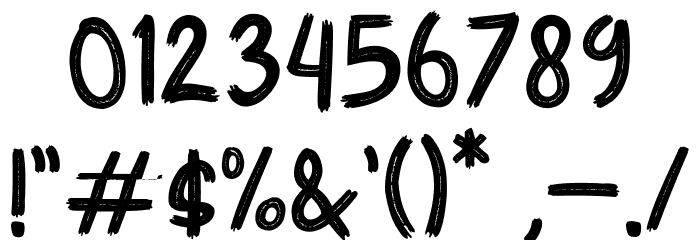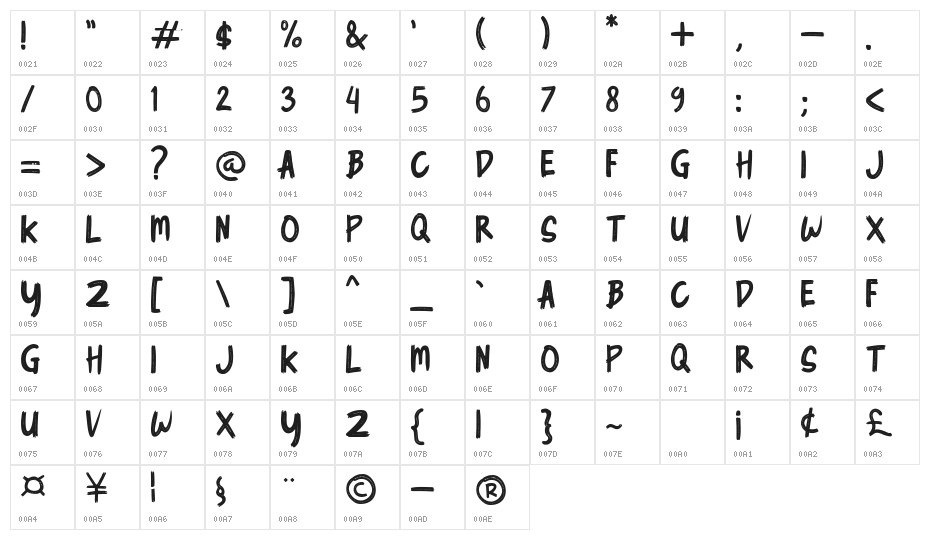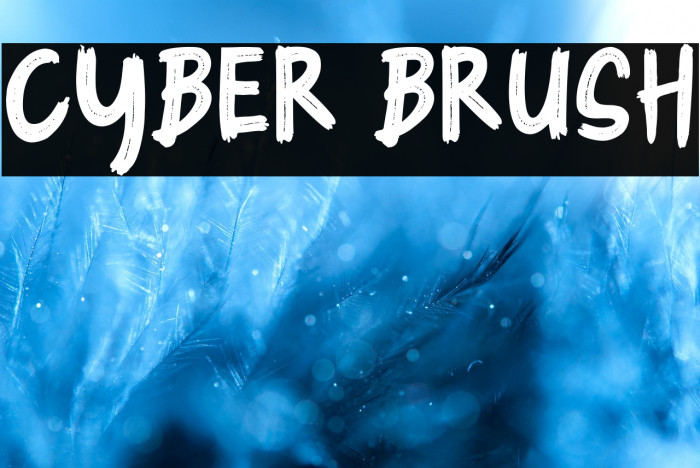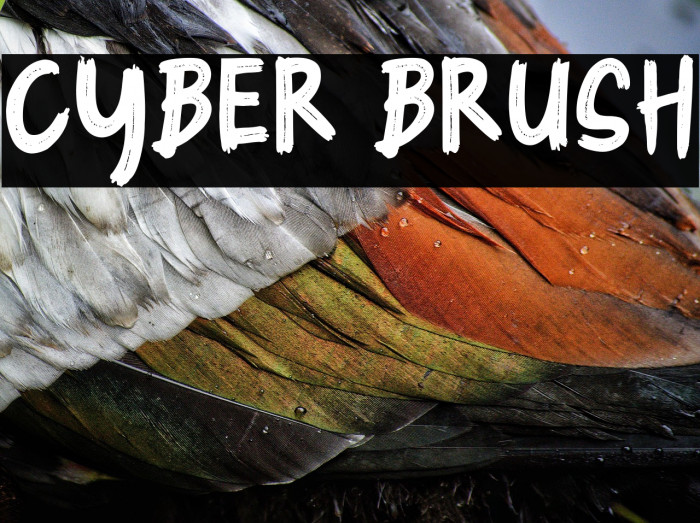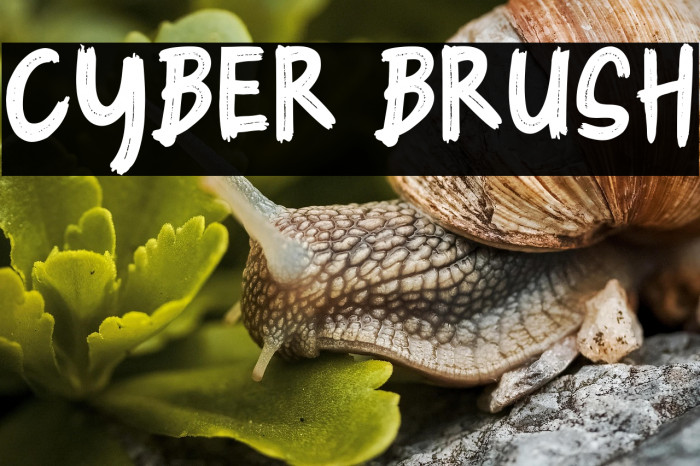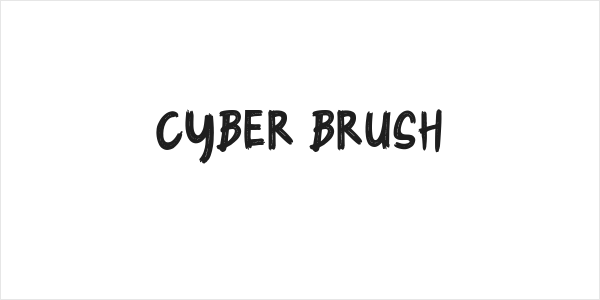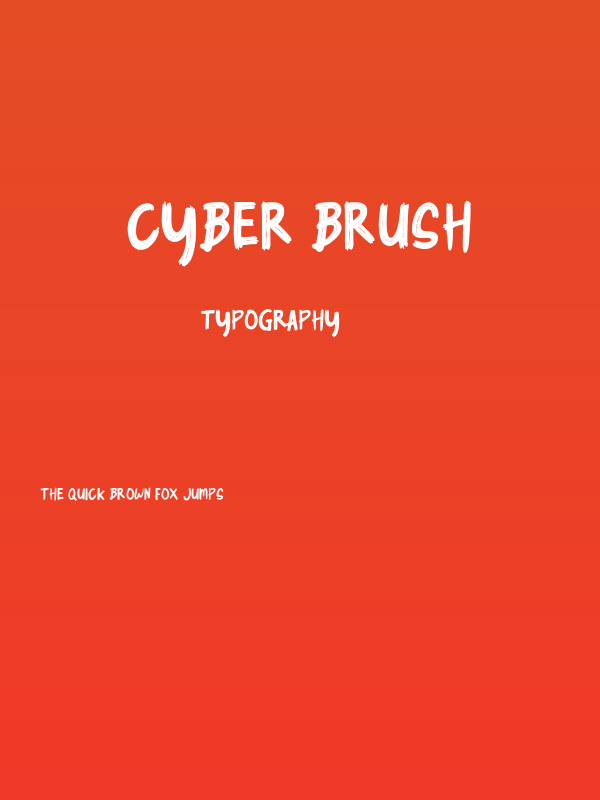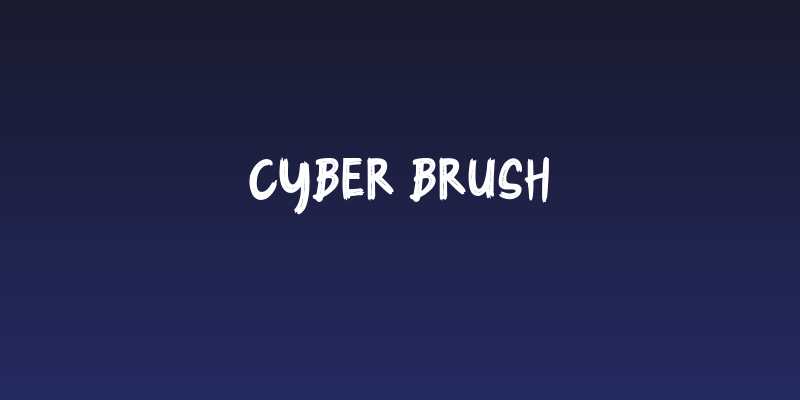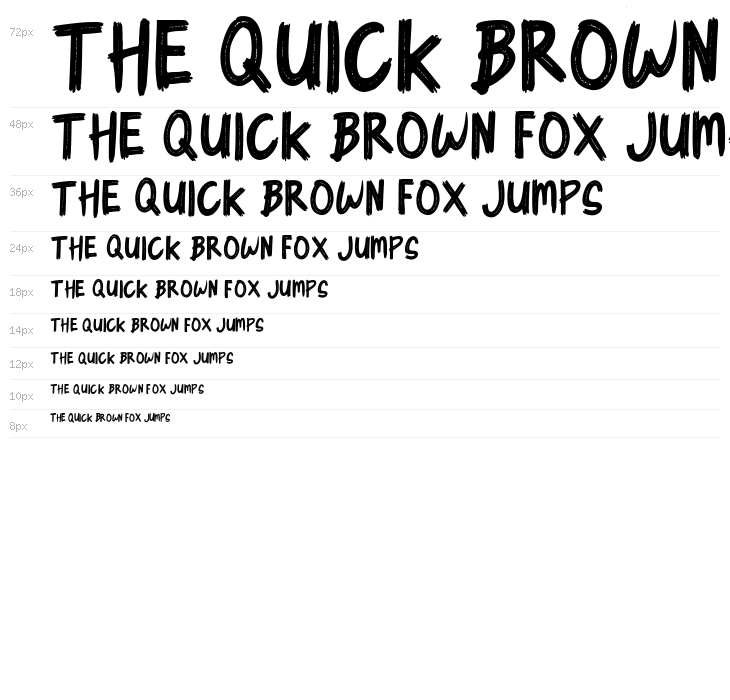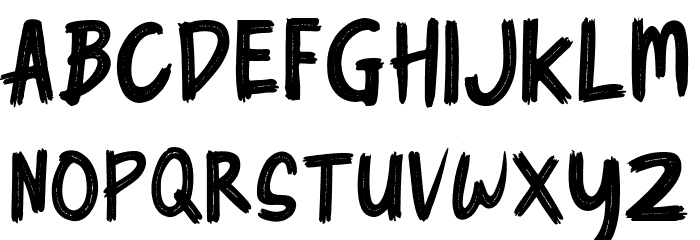
Cyber Brush Font
Cyber Brush Description
This font features a bold, brush-like style that exudes a sense of energy and dynamism. The strokes are thick and uneven, giving it a hand-drawn appearance that is both playful and expressive. Each character is crafted with a sense of movement, as if painted with a swift, confident brushstroke. The letters are slightly slanted, adding to the casual and informal feel. The font maintains a consistent weight throughout, with moderate spacing between characters that ensures readability while preserving its artistic flair. The numbers and special characters are designed with the same brush-like quality, making them seamlessly integrate with the alphabet. This font is perfect for projects that require a bold, artistic touch.